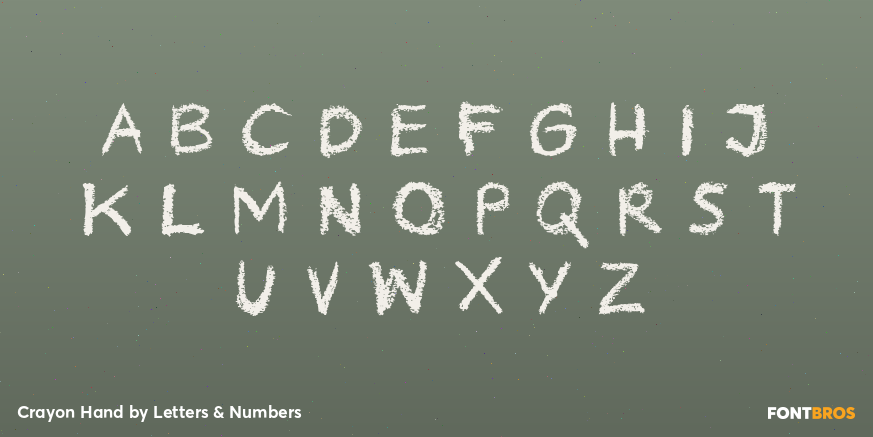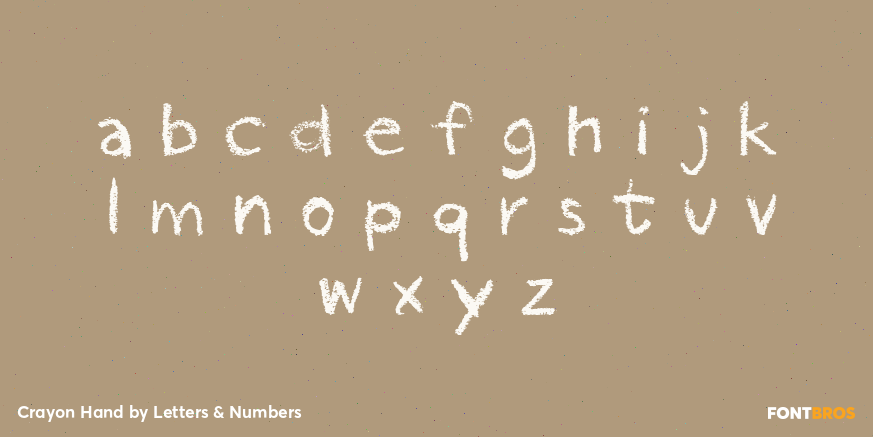
Crayon Hand
Font Family by Letters & Numbers
In absence of oil pastels, charcoal, crayons or time, Crayon Hand is a quick fix to happy type setting. It comes in regular and bold. Enjoy!
Crayon Hand is extended, containing West European diacritics making it suitable for multilingual environments and publications.